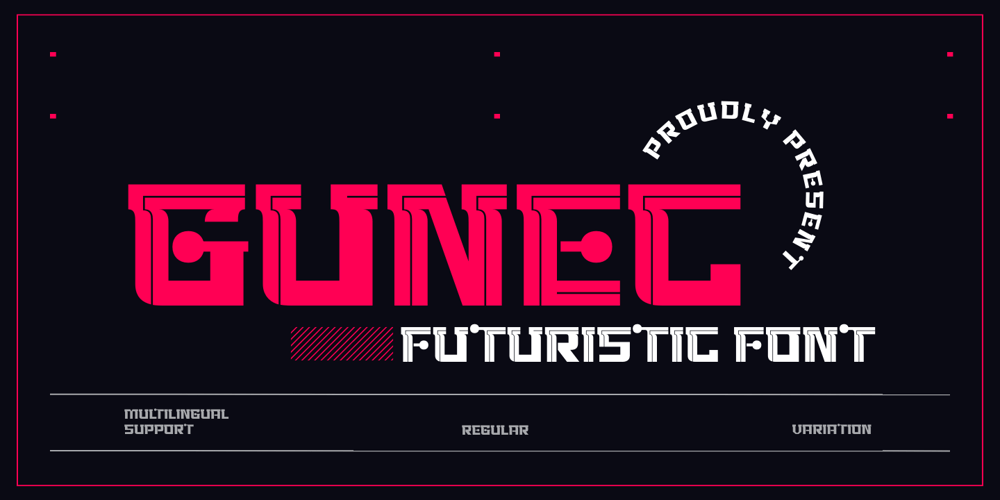
Gunec Font Family was designed by Rozikan and published by Twinletter. Gunec contains 2 styles and family package options. Introducing Gunec, a cutting-edge and futuristic font ideal for technology- and science-related designs. Gunec is the ideal choice for anyone looking to add a touch of futurism to their work thanks to its distinctive letterforms and svelte lines.The versatile font Gunec can be used for a variety of tasks, such as branding, packaging design, book covers, and more.However, Gunec is more than just a pretty face. This font is ideal for all of your design projects, from print to digital, as it is made to be highly legible and simple to read. Additionally, Gunec has all the elements required to produce a comprehensive and professional design, including a full set of upper- and lowercase letters, punctuation, and numerals.With Gunec font, you’ll be able to create designs that are both stylish and professional, with a futuristic look that’s sure to stand out. This font is perfect for those who want to be ahead of the curve in design, and for those who want to add a touch of innovation to their work.So don’t wait, make Gunec your font of choice today, and take your designs to the next level!What’s Included :- File font OTF, TTF, WOFF, WOFF2, CSS, HTML- All glyphs Iso Latin 1- Alternate- Simple installations- We highly recommend using a program that supports OpenType features and Glyphs panels like many Adobe apps and Corel Draw so that you can see and access all Glyph variations.- PUA Encoded Characters – Fully accessible without additional design software.- Fonts include Multilingual support